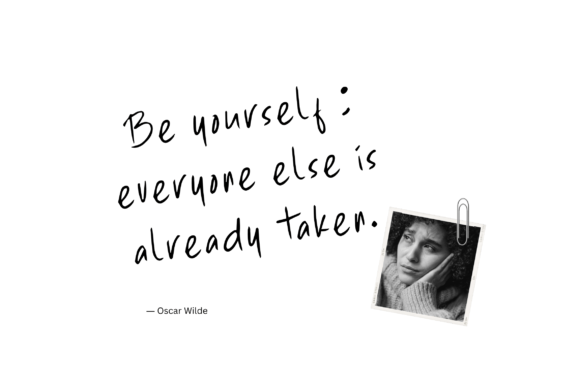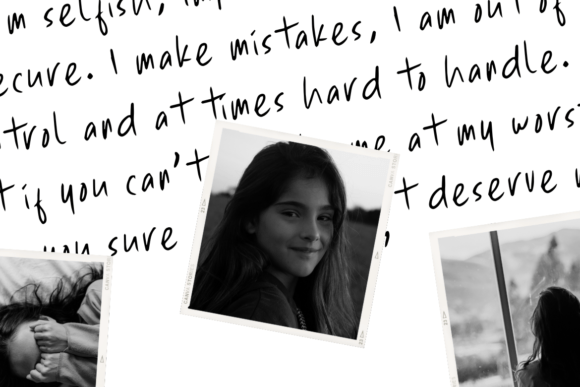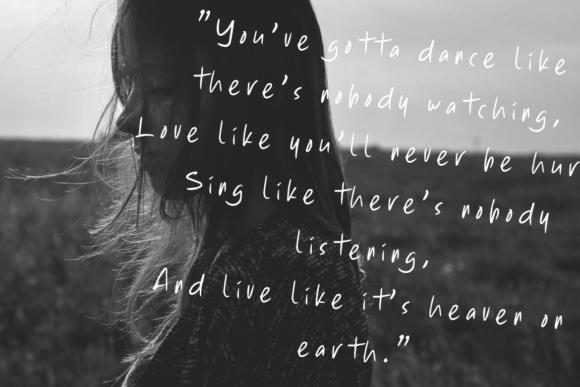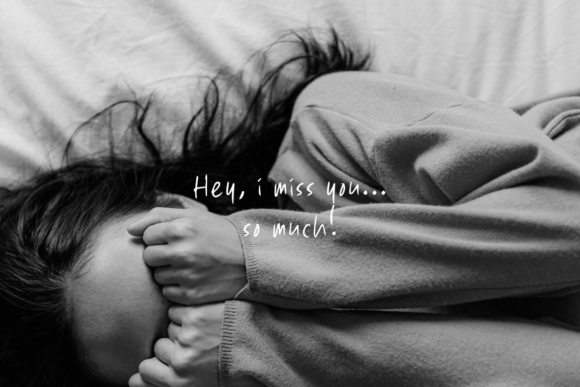
About Sunset Script Font
**Sunset Script Handwritten Font: Quick-Stroke Elegance for Your Creative Projects**
The Sunset Script Handwritten Font is a versatile typeface known for its quick-stroke elegance, making it an ideal choice for various creative endeavors. Here’s how you can effectively use the Sunset Script Font to enhance your projects and add a touch of style:
1. **Emphasize Notes:** Use the Sunset Script Font to highlight important notes, headings, or key points in your documents, presentations, or study materials. Its quick-strokes give a sense of urgency and importance to the content.
2. **Stylish Artwork:** Create stylish artwork, illustrations, or graphics using the Sunset Script Font. Its elegant and fluid strokes can be used to draw attention to specific elements or to add artistic flair to your designs.
3. **Photography Overlays:** Overlay photographs with text using the Sunset Script Font to create captivating images for social media, photography portfolios, or personal projects. The font’s quick strokes can add dynamic energy to your visuals.
4. **Logo Design:** Design logos, visual identities, or branding materials for businesses, startups, or personal ventures using the Sunset Script Font. Its elegant strokes create memorable and sophisticated logos.
5. **Quotes and Sayings:** Showcase quotes, sayings, or inspirational messages using the Sunset Script Font. Its quick-stroke style adds a sense of movement and liveliness to your typography art.
6. **Social Media Graphics:** Craft engaging and shareable social media posts, stories, profile images, or banners using the Sunset Script Font. Its elegant and quick strokes make your content visually appealing.
7. **Greeting Cards:** Design personalized greeting cards, invitations, or thank-you notes with the Sunset Script Font. Its quick strokes convey warmth and sincerity in your messages.
8. **Product Packaging:** Elevate the design of product packaging, especially for beauty products, perfumes, or luxury items. The Sunset Script Font adds a sense of elegance and sophistication to packaging.
9. **Merchandise Design:** Create merchandise designs, including T-shirts, apparel, and accessories, using the Sunset Script Font. Its quick-stroke style appeals to fashion-forward audiences.
10. **Website Headings:** Enhance the design of website headings, banners, or hero images with the Sunset Script Font. Its elegance and quick strokes add a touch of sophistication to web visuals.
11. **Magazine Layouts:** Use the Sunset Script Font in magazine layouts for headings, subheadings, pull quotes, or article titles. Its quick-strokes create a dynamic and stylish magazine design.
12. **Book Covers:** Apply the font to book covers, especially for contemporary fiction, self-help books, or lifestyle publications that require an elegant and dynamic design.
13. **Crafting Projects:** Utilize the Sunset Script Font for various crafting projects, such as scrapbooking, handmade cards, or DIY home decor. Its quick strokes add flair to crafting designs.
14. **Special Events:** Design materials for special events like weddings, anniversaries, or parties using the Sunset Script Font. Its quick strokes bring a sense of celebration and festivity to your designs.
15. **Typography Art:** Create unique typography art pieces using the Sunset Script Font to experiment with different styles and compositions. Its quick-stroke elegance offers endless creative possibilities.
16. **Personal Projects:** Let your creativity run wild by using the Sunset Script Handwritten Font in any personal project that demands quick-stroke elegance and dynamic typography.
The Sunset Script Font’s quick-stroke elegance is a valuable asset for designers, artists, writers, and anyone looking to add a sense of movement, style, and sophistication to their creative projects. Whether you’re working on branding, promotional materials, or personal design endeavors, this font’s quick strokes convey a sense of urgency and importance, making your content visually captivating and impactful.